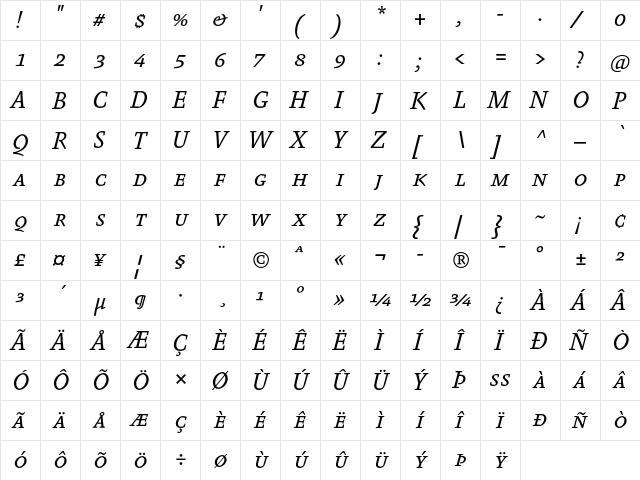
Absara TF Regular SC Italic Font Preview
Absara TF Regular SC Italic
Design Context for Absara TF Regular SC Typeface
Absara TF Regular SC is a composed and adaptable typeface that performs quietly and consistently across a wide range of design contexts. Its italic angle brings a sense of urgency and motion to the letterforms.
Pro Tip: Try Absara TF Regular SC for annotation and caption copy alongside an upright companion — the contrast in angle creates a dynamic but ordered typographic system.